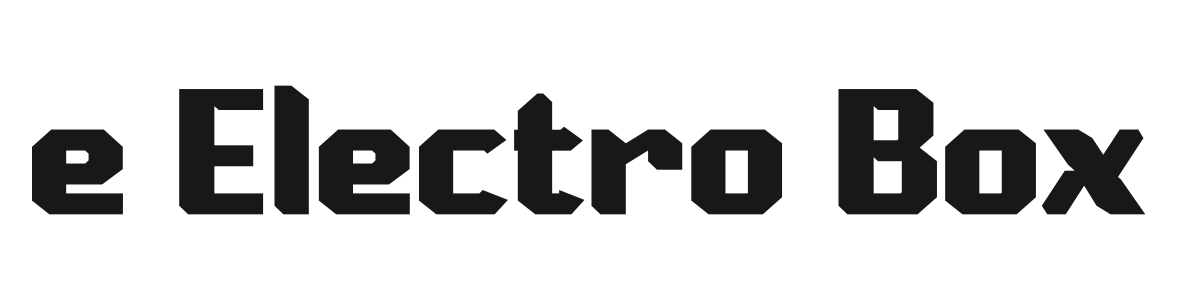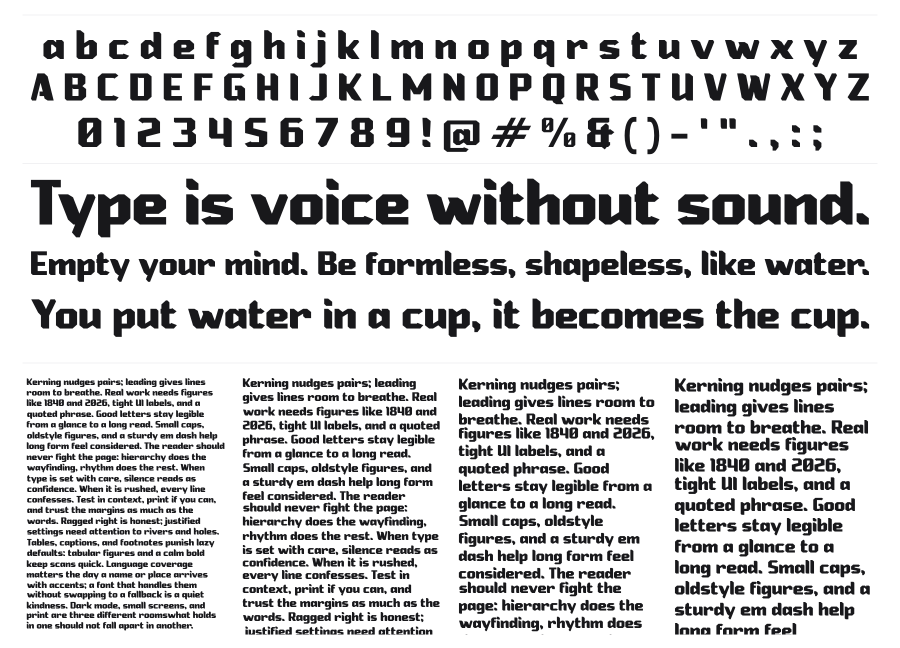
e Electro Box
Electro Box is a heavy geometric techno face built entirely from squared, flat-cut strokes with notched joints and angular corners. The design reads like a digital signal made typographic, somewhere between pixel art and industrial stencil. It carries real weight on posters, game titles, and any branding that needs to feel hard-edged and electronic.